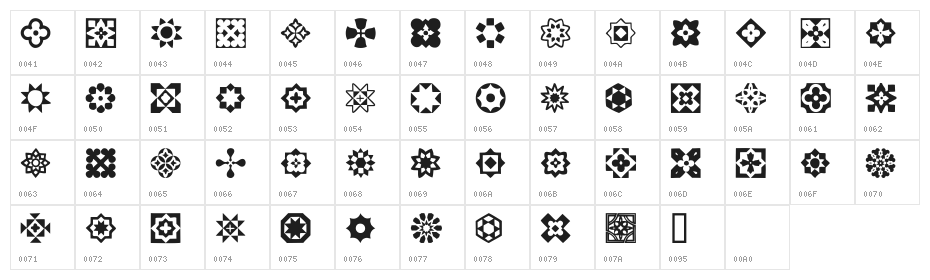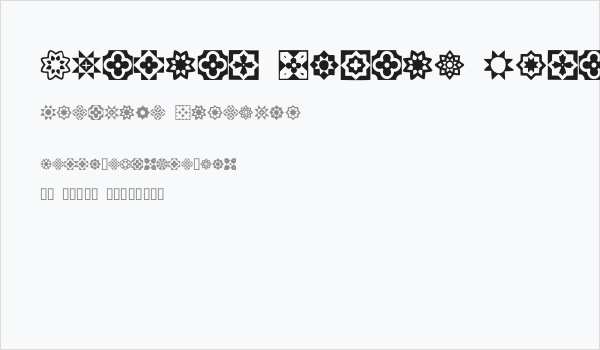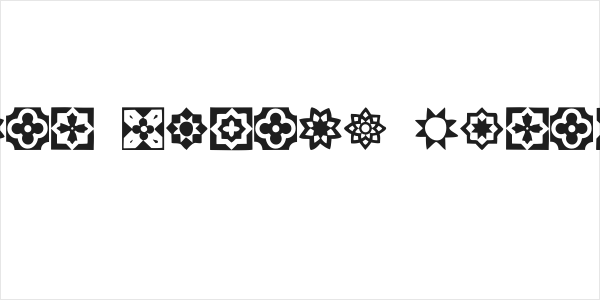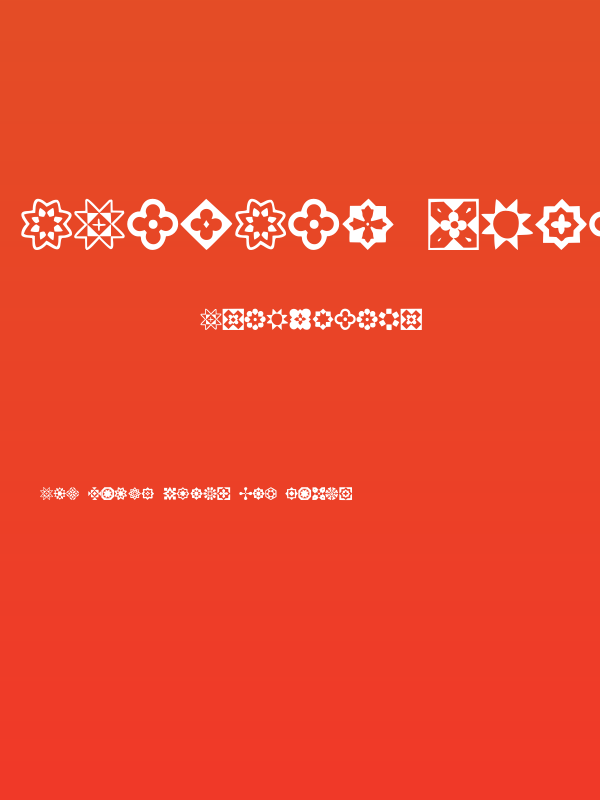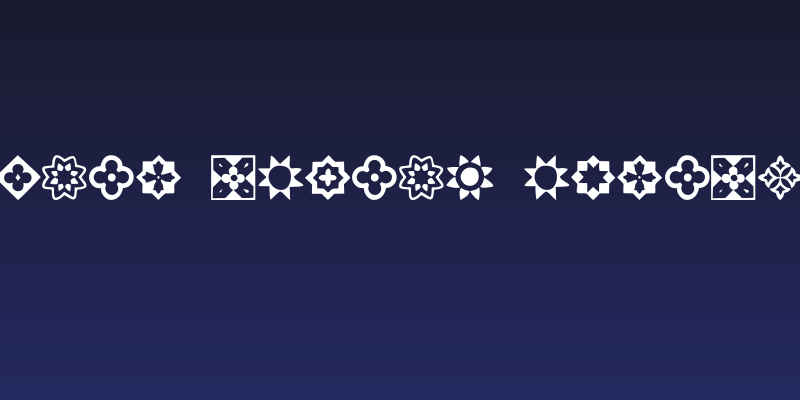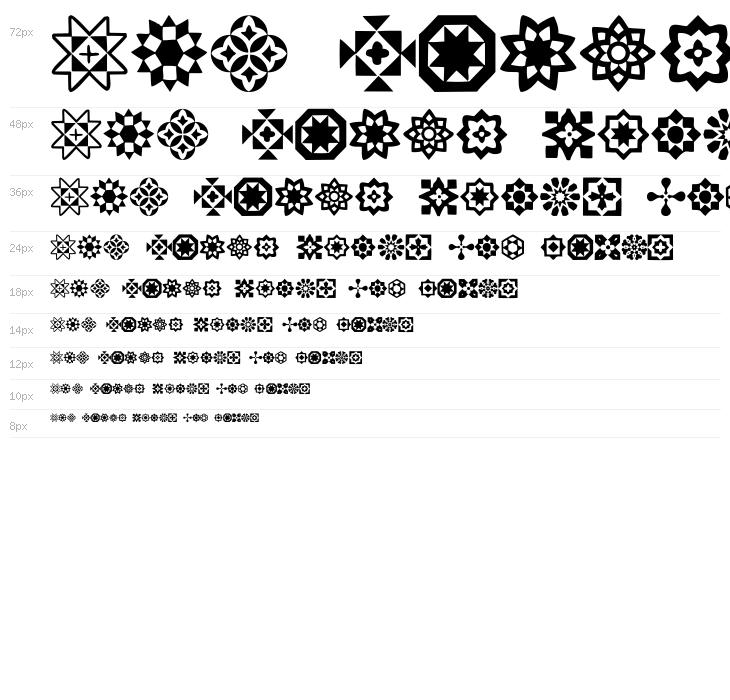
Italian Mosaic Ornaments Font
Italian Mosaic Ornaments Description
A decorative set of intricate, geometric, and floral mosaic ornaments inspired by traditional Italian tile patterns. The glyphs are highly stylized, bold, and rendered in black and white, featuring a mix of symmetrical and complex shapes within square or rectangular frames.
| Overall Style | Decorative, Vintage, Ornamental |
| Use Case | Borders, Frames, Decorative elements, Logos |
| Proposed Projects | Borders, invitations, packaging, branding, textile design, digital scrapbooking, decorative dividers. |